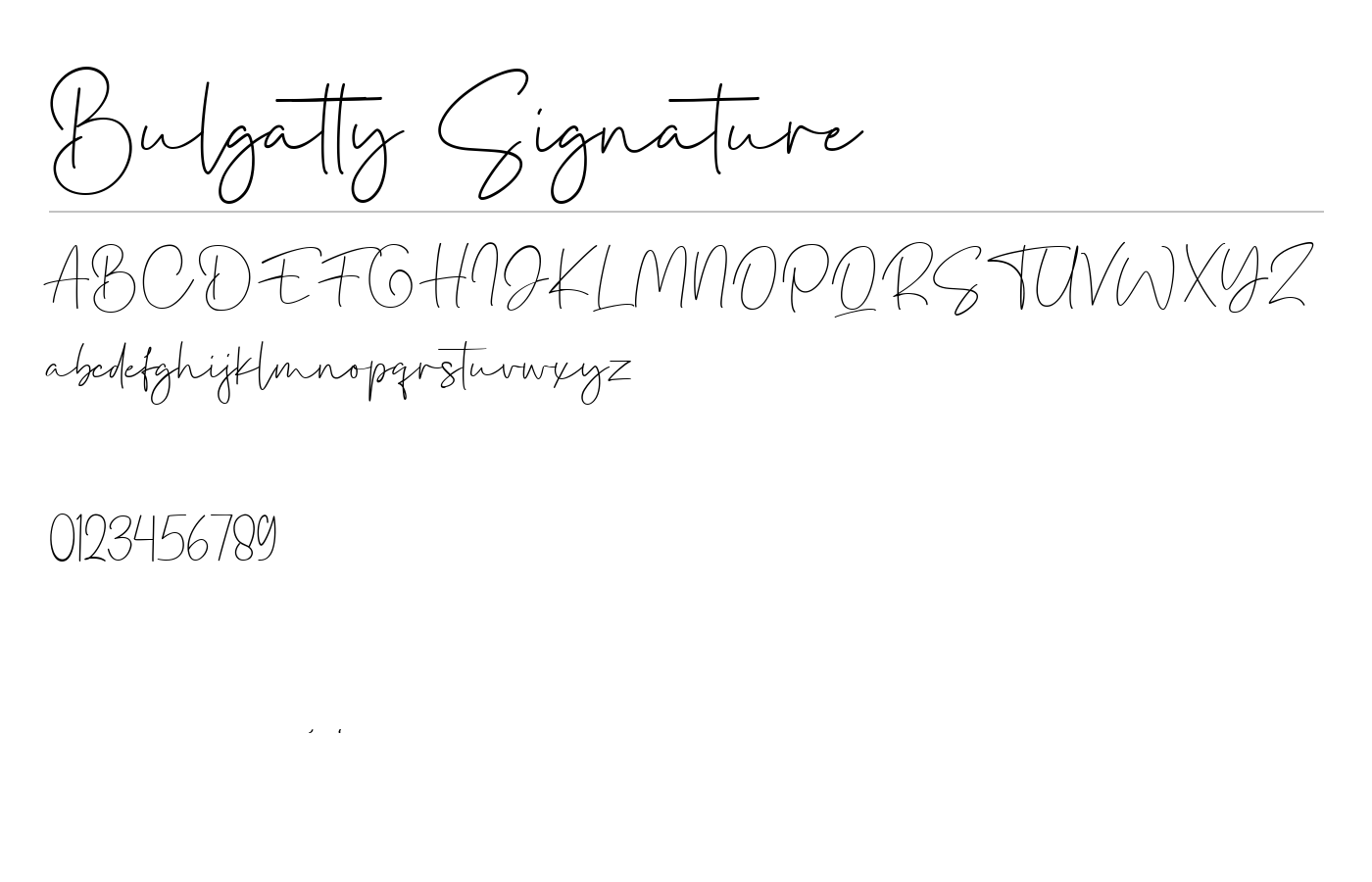
Bulgatty Signature is a delicate, handwritten script font that mimics elegant, natural handwriting with a tall, slender form and fine strokes. Its light weight and graceful flow make it perfect for personal branding, invitations, and stylish logos where a sophisticated, intimate, and modern touch is desired. This font works especially well in projects needing a unique, refined personality with a casual yet polished feel.
Bulgatty Signature Font
About Bulgatty Signature Font
| Font family | Bulgatty Signature Font |
| Designer | Iqbal Pauji |